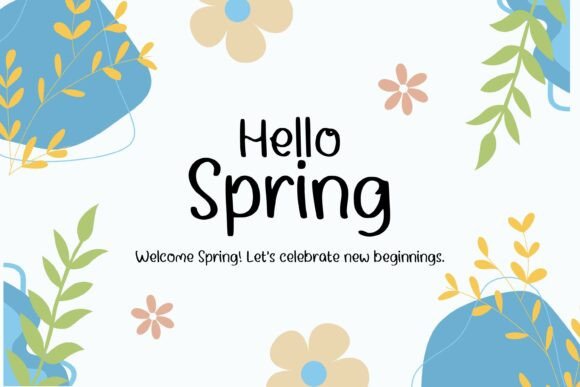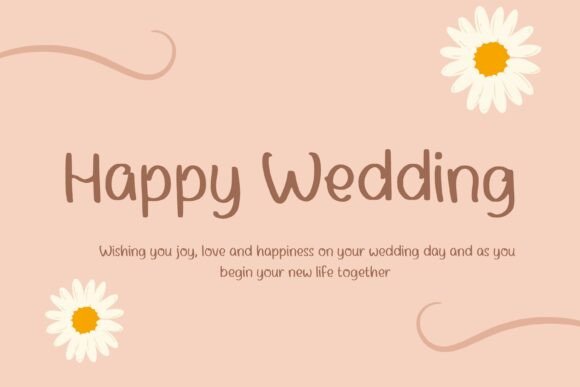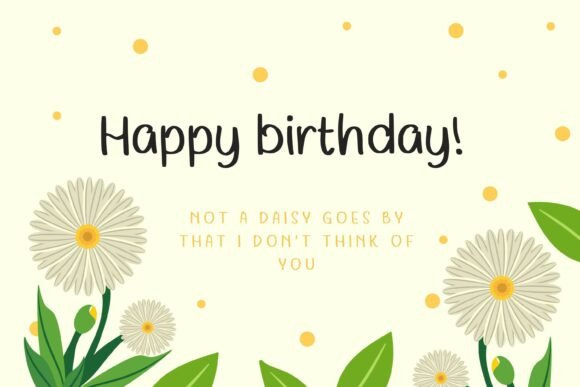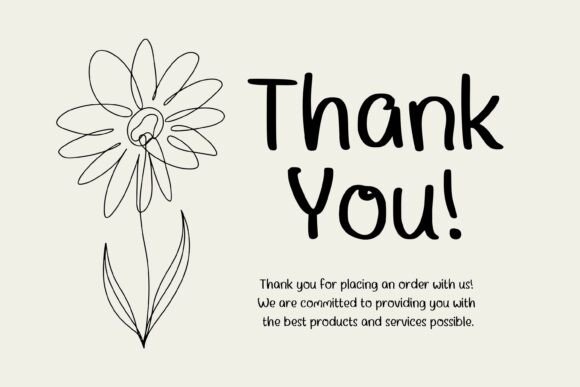
Spring into Design with the Charm of Daisy Hana Font
Do you remember the moment when you first started planning a spring-themed wedding or birthday party? You probably envisioned a whimsical atmosphere filled with pastel colors, floral arrangements, and delicate handwritten invitations. That’s exactly the feeling you can evoke with the Daisy Hana Font, a beautiful handcrafted font that embodies the essence of the season.
With its elegant, handwritten style, the Daisy Hana Font is perfect for adding a personal touch to your greeting cards, gift tags, and other celebratory designs. As a designer, you’ll appreciate the unique character and charm that this font brings to your work. Whether you’re creating a custom wedding invitation or a birthday card, the Daisy Hana Font is a valuable addition to your design toolkit.
Daisy Hana Font Key Features
- Font Family: Daisy Hana is a modern sans-serif font family with a friendly and approachable feel.
- Unique Characteristics: Features a unique blend of geometric and organic elements, resulting in a distinctive and recognizable style.
Daisy Hana Font Review
As a designer, I was excited to try out the Daisy Hana Font for my latest project. Here’s my honest review:
- Beautiful, delicate script font that’s perfect for feminine and elegant designs.
- Well-suited for titles, headings, and short paragraphs of text.
- Works well in both print and digital formats.
- Good for creating a whimsical and playful atmosphere in designs.
- Not suitable for body text due to its script nature, which can be hard to read in large blocks.
- Might be difficult to pair with sans-serif fonts, as it can clash with the clean lines.
- Some characters may not be available in all languages, which can be a limitation for global designs.
I love the Daisy Hana Font for its unique and charming personality. While it has some limitations, it’s a great addition to any designer’s toolkit for creating beautiful, elegant designs. Just remember to use it sparingly and in the right context to get the most out of it.
Tips for Getting the Most Out of Daisy Hana Font
To get the most out of the Daisy Hana font, try using it in combination with other elegant fonts, such as cursive or script fonts. This will create a beautiful and sophisticated design. You can also use it to create a vintage or retro look by pairing it with distressed or worn textures.
The Daisy Hana font is perfect for:
- Birth announcements and baby shower invitations